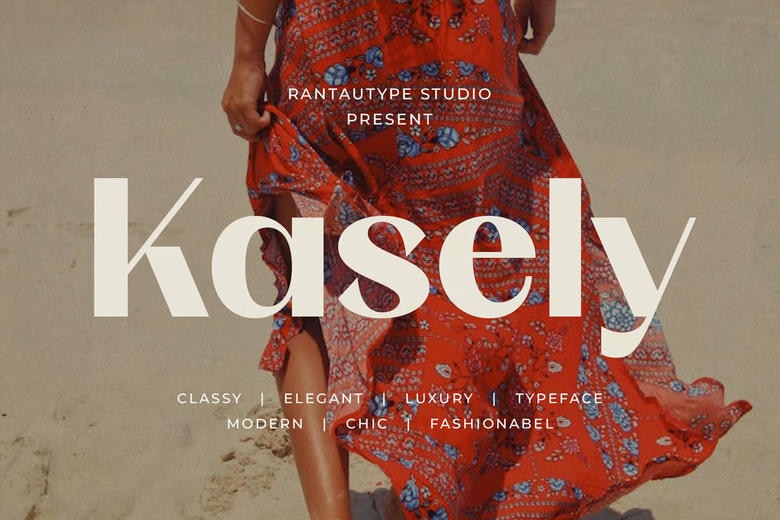
Kasely Font
Kasely is luxury decorative typeface designed in a classically stylish manner as a labor of passion. Kasely is used for any commercial purpose, artsy, lifestyle design for logo, advertisement, water mark on photo, letterhead, company profile, identity, display and magazine, invitation, corporate identity, product, label, business related and many other projects which require a modern look.
Kasely Classy Luxury Sans Serif Font